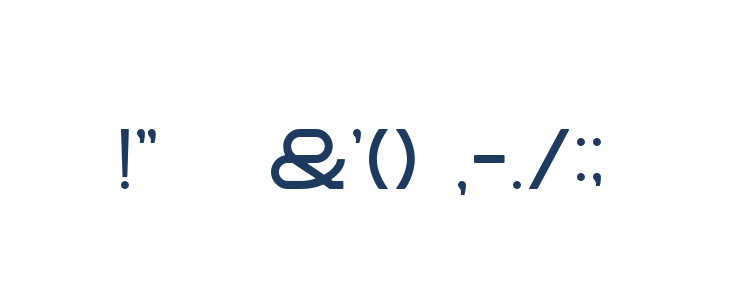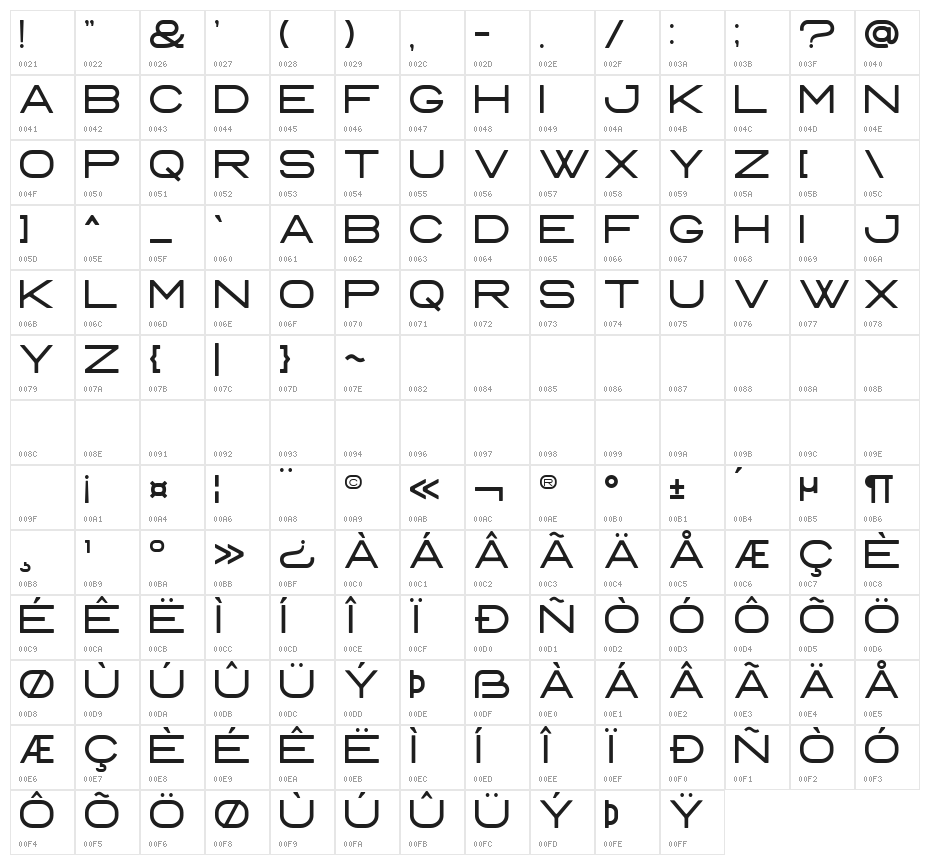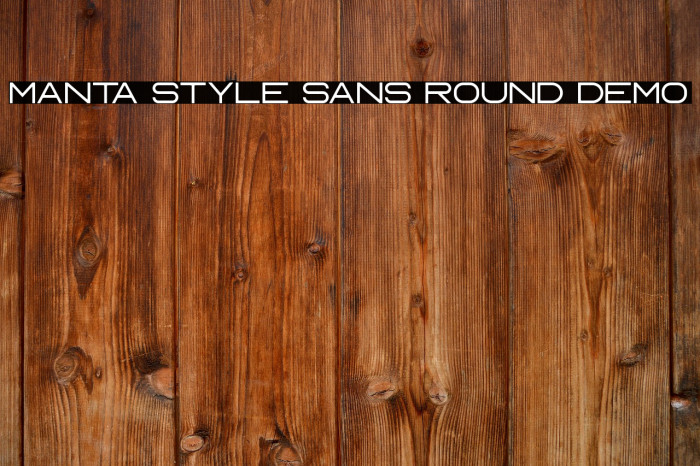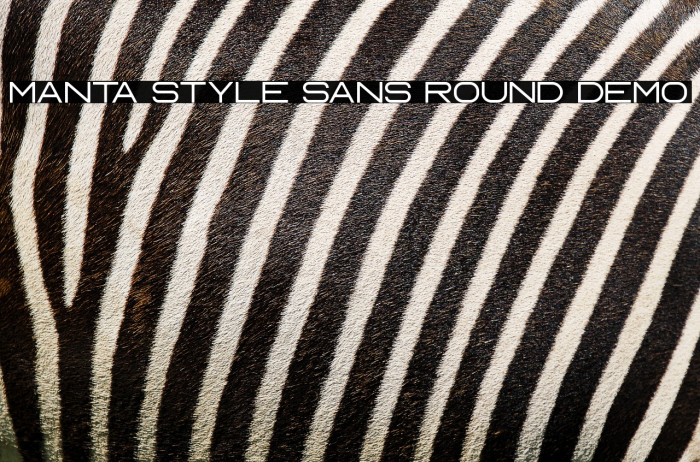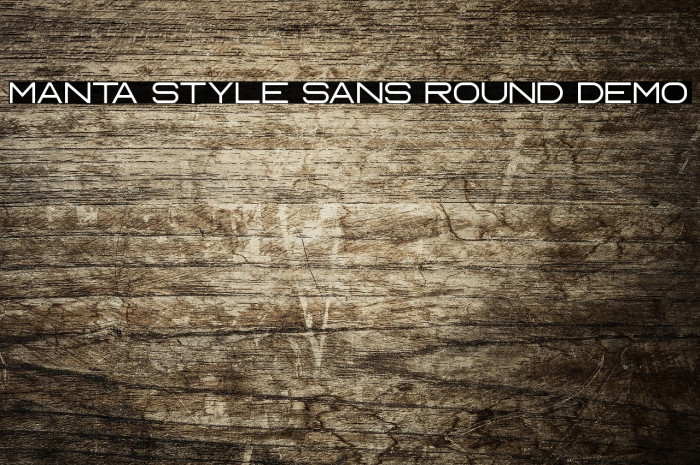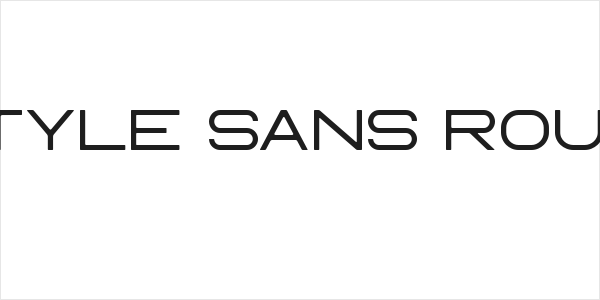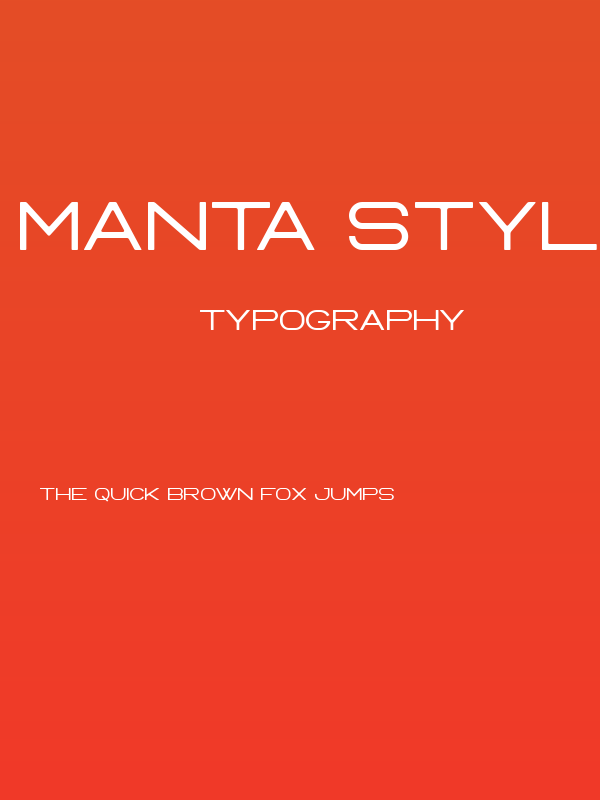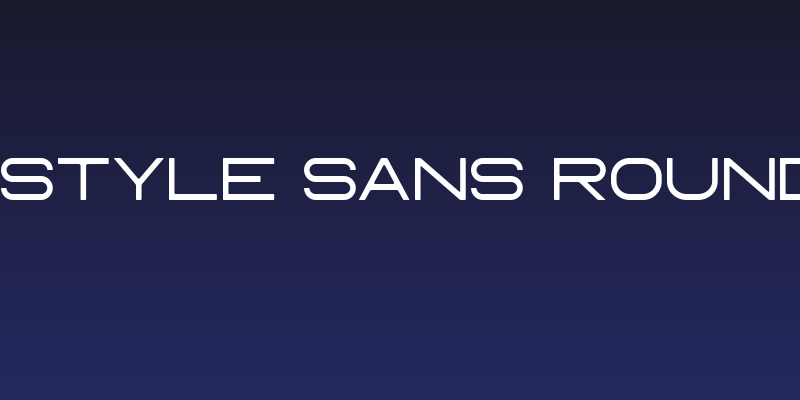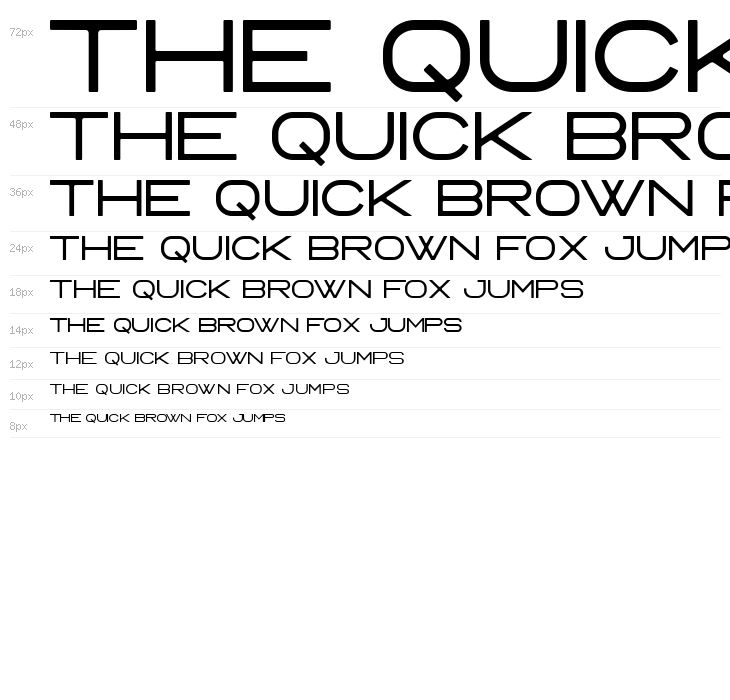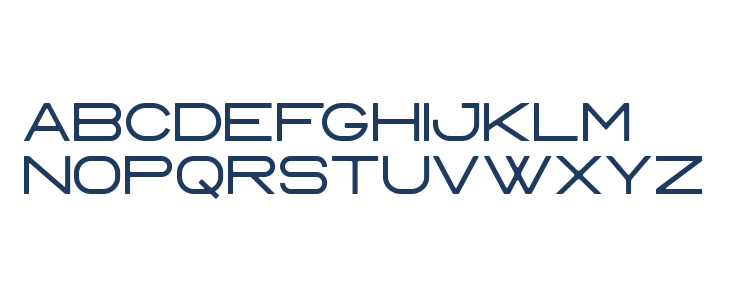
Manta Style Sans Round DEMO Font
Manta Style Sans Round DEMO Description
This font features a clean, geometric design with rounded edges, giving it a modern and approachable appearance. The characters are evenly spaced, contributing to a balanced and harmonious look. The uppercase letters are bold and prominent, while the lowercase letters maintain a consistent style, ensuring readability. The numerals and special characters are designed to complement the overall aesthetic, making it versatile for various applications. Its simplicity and clarity make it suitable for both digital and print media, offering a contemporary feel that is both stylish and functional.
| Proposed Projects | Ideal for branding, advertising, web design, and editorial layouts. |